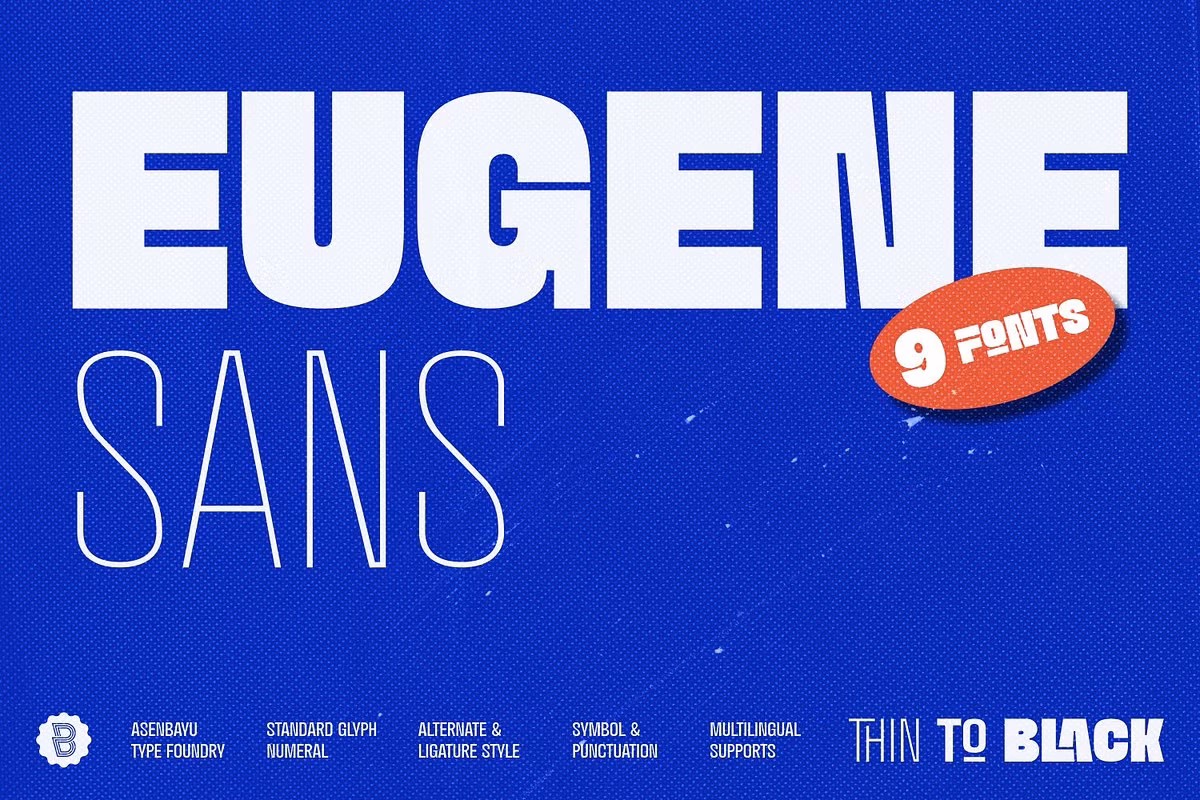
Eugene Sans Font Family Free Download is a clean and modern sans-serif typeface family designed with versatility and readability in mind. Featuring a wide range of weights and styles, this font family is ideal for a variety of design projects, including branding, web design, editorial layouts, and corporate materials.
The Eugene Sans family offers balanced proportions, smooth curves, and an overall contemporary aesthetic, making it perfect for both large headlines and smaller body text. Whether you're working on a professional presentation, a sleek website, or a modern print project, Eugene Sans provides the clarity and stylish design your project needs.